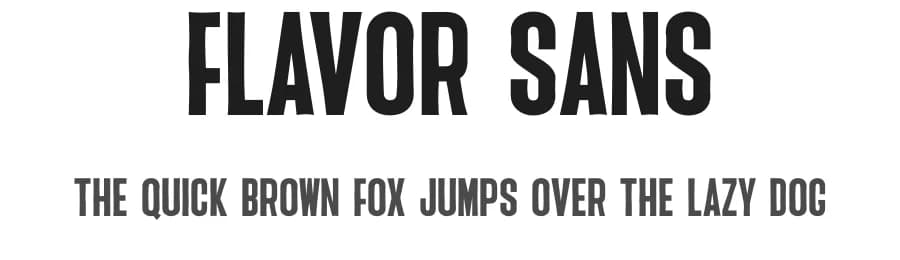
About Flavor Sans Font
Suitable for use in casual themed design applications, this font is made with a unique shape and condensed width, as well as a strong authenticity value.
Flavor sans consist 1 style, namely :
- Regular
Flavor Sans Font is a versatile sans-serif font that works for both headings and body text. Pair it with a contrasting serif or slab serif font to add visual interest and a clear distinction between titles and body copy.
Flavor Sans Font